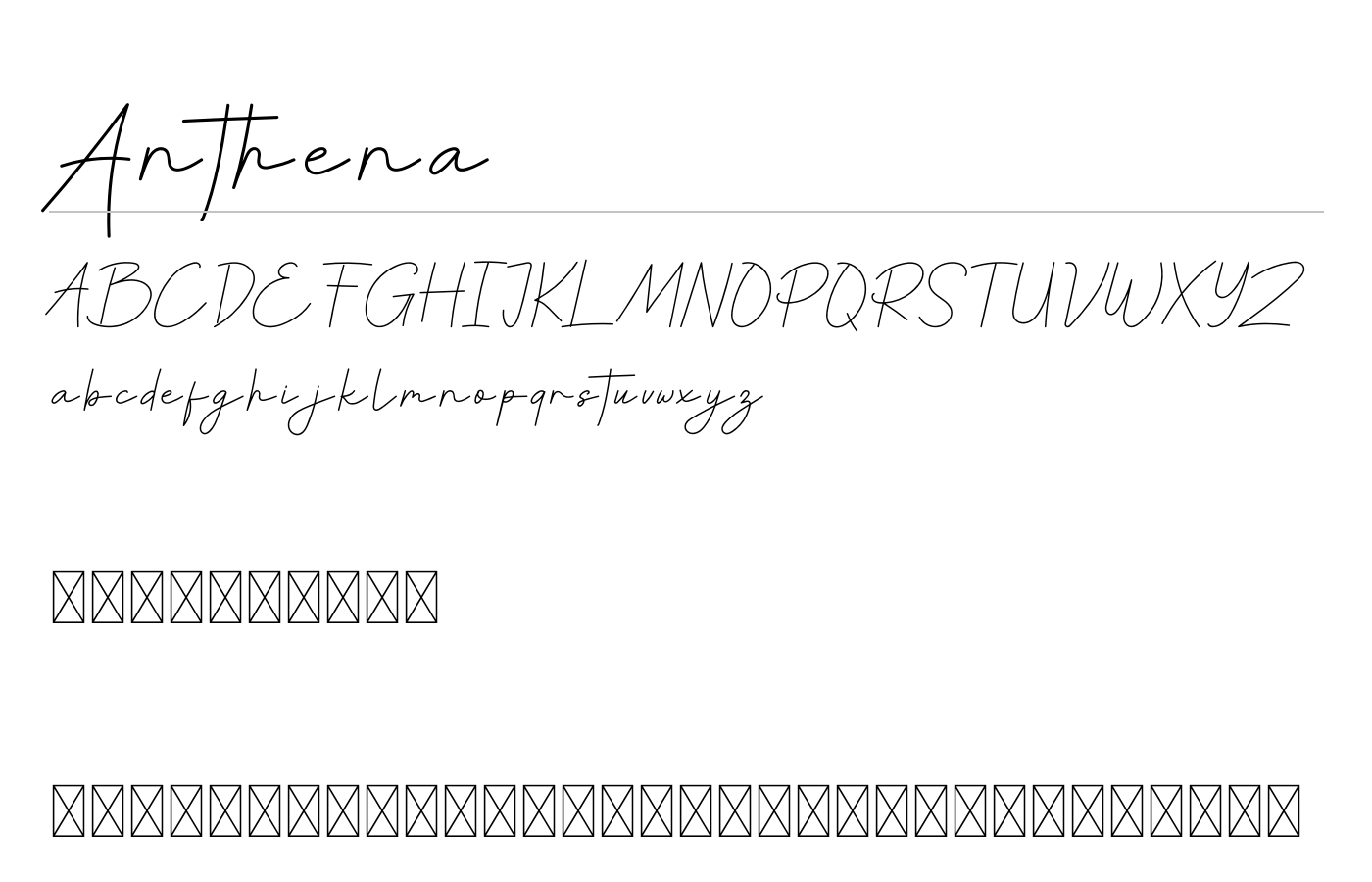
Anthena is a delicate and elegant handwritten script font characterized by its thin, flowing lines and a natural, personal touch. Its slender, slightly tall letterforms create a light and airy feeling, making it perfect for stylish branding, invitations, and feminine editorial designs that require a modern yet graceful look. This font adds a refined, approachable personality that works beautifully in contexts where sophistication meets casual charm.
Anthena Font
About Anthena Font
| Font family | Anthena Font |
| Designer | Didik Saputra |